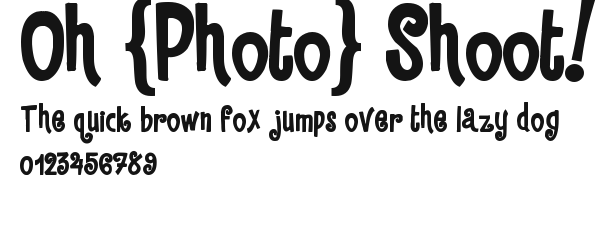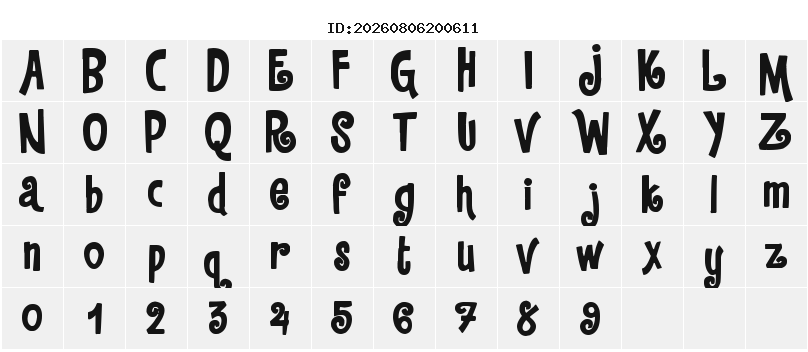
Oh {Photo} Shoot! Preview
• Font Name: Oh {Photo} Shoot!
About Oh {Photo} Shoot!.ttf
Oh {Photo} Shoot!.ttf is a modern, elegant sans-serif font designed for ultimate readability and visual harmony. Perfect for branding, headlines, web design, and print materials.